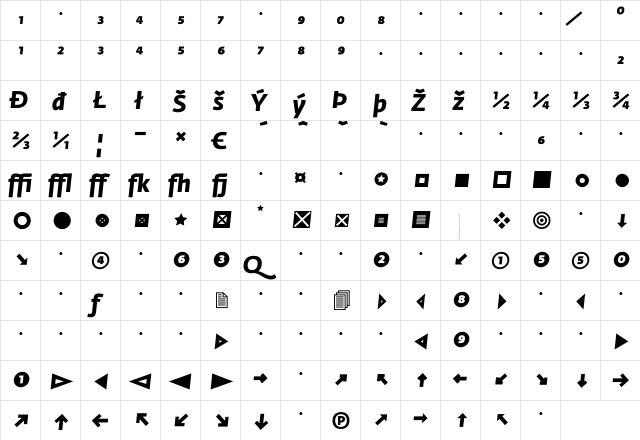
Fedra Sans Bold Italic Expert
Design Context for Fedra Sans Typeface
Fedra Sans is a composed and adaptable typeface that performs quietly and consistently across a wide range of design contexts. Its italic angle brings a sense of urgency and motion to the letterforms. Its bold stroke weight gives it real presence on the page.
Pro Tip: Try Fedra Sans for annotation and caption copy alongside an upright companion — the contrast in angle creates a dynamic but ordered typographic system.